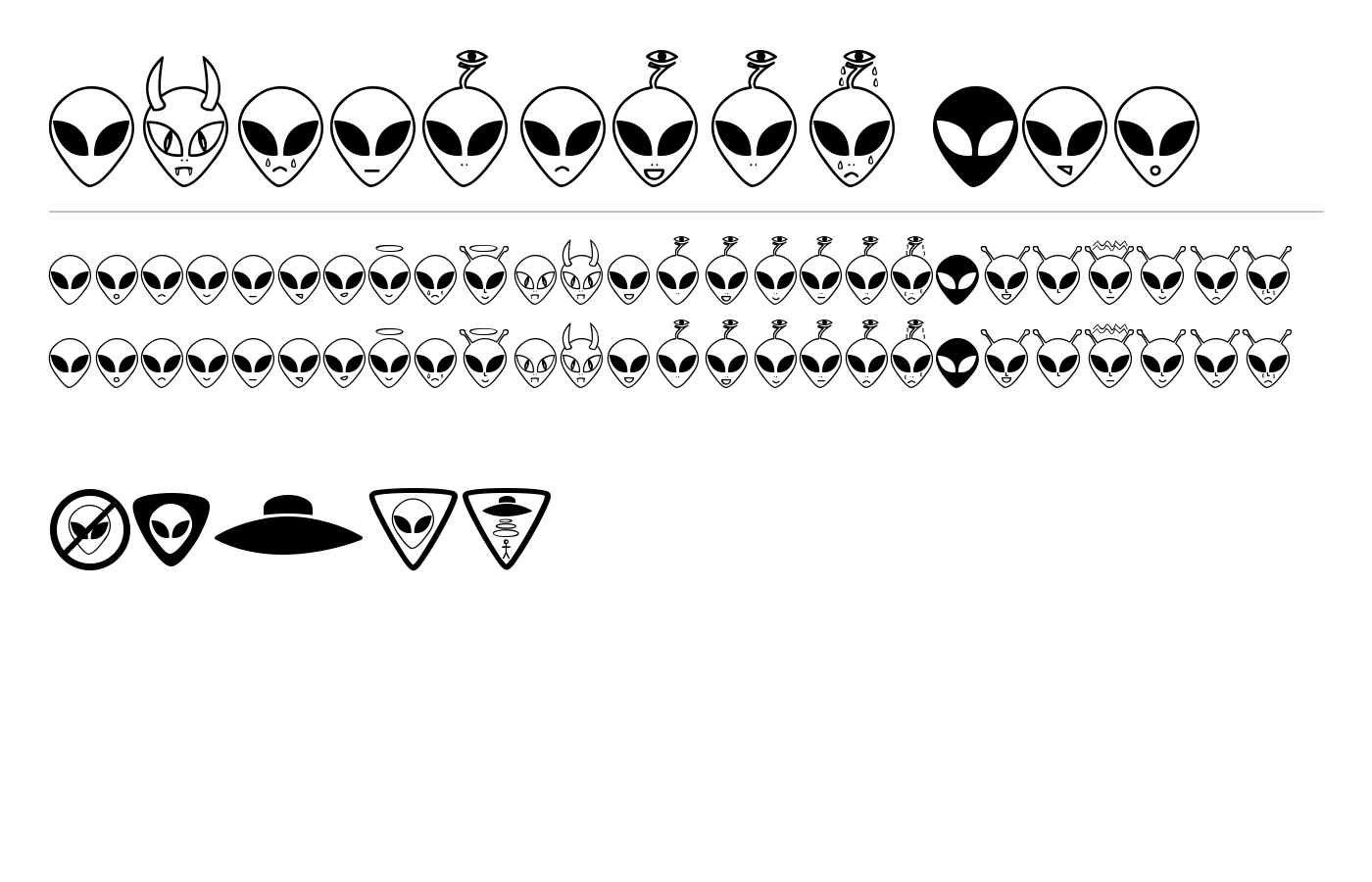
Aliencons TFB is a playful and imaginative dingbat font featuring a wide range of alien heads and space-themed icons. Its bold, black-and-white designs showcase quirky expressions and simple shapes, making it perfect for fun, futuristic, or sci-fi themed projects. This font works great for posters, logos, and creative branding that needs a unique, extraterrestrial vibe.